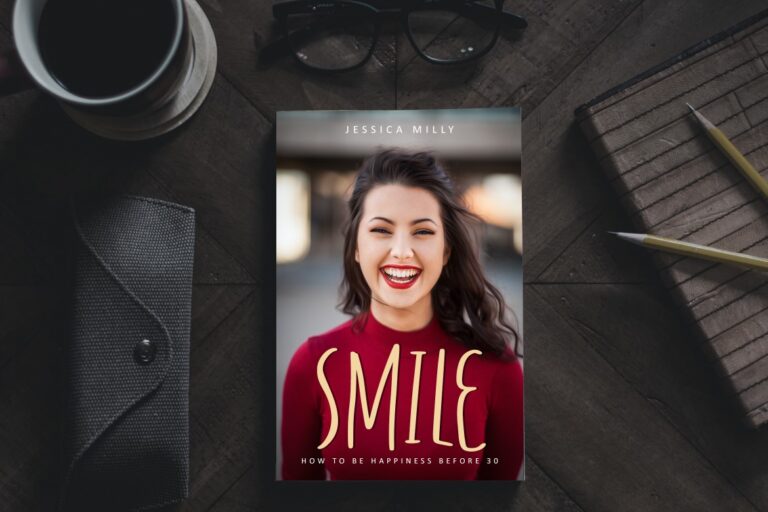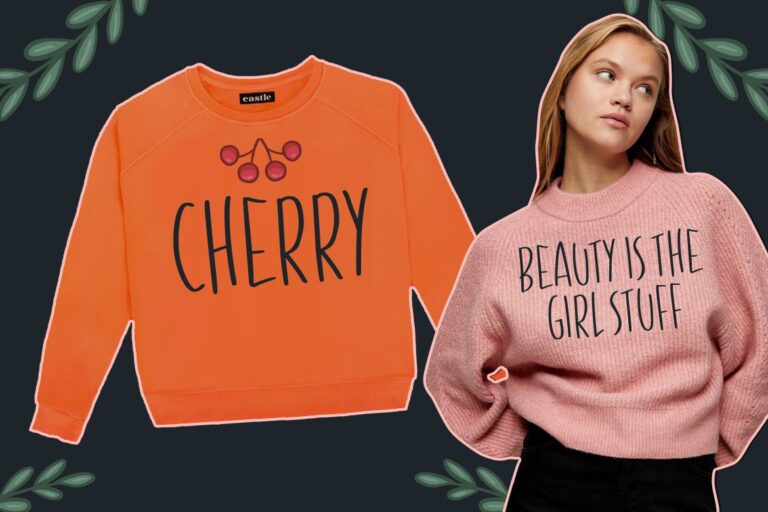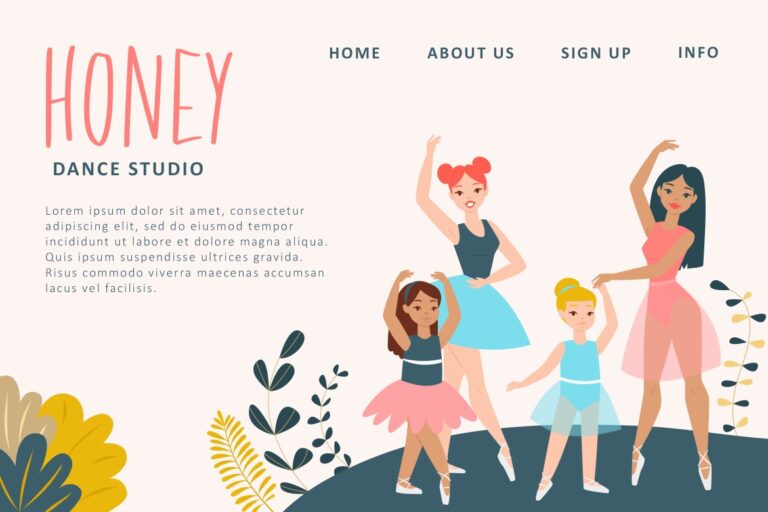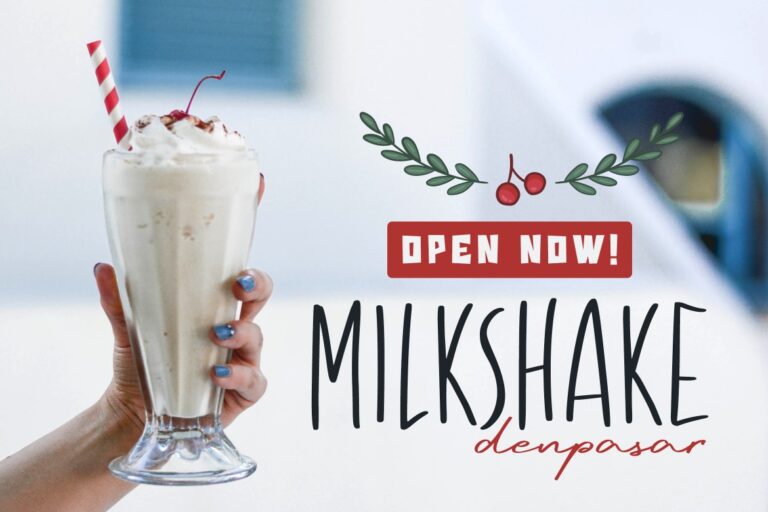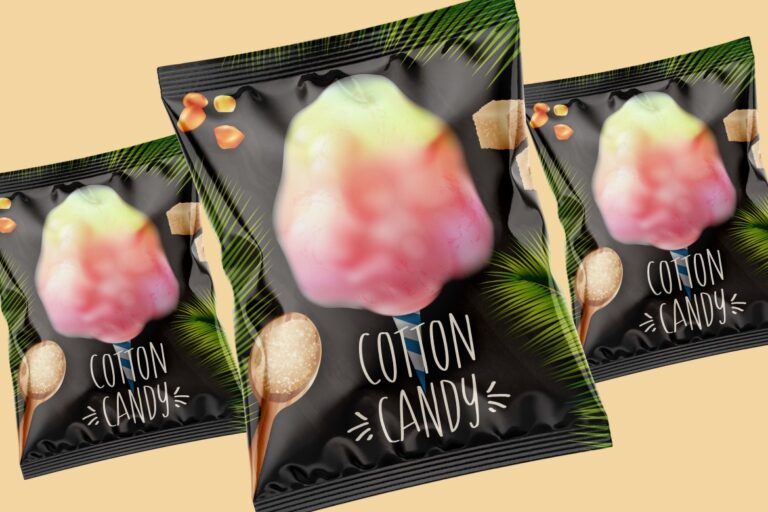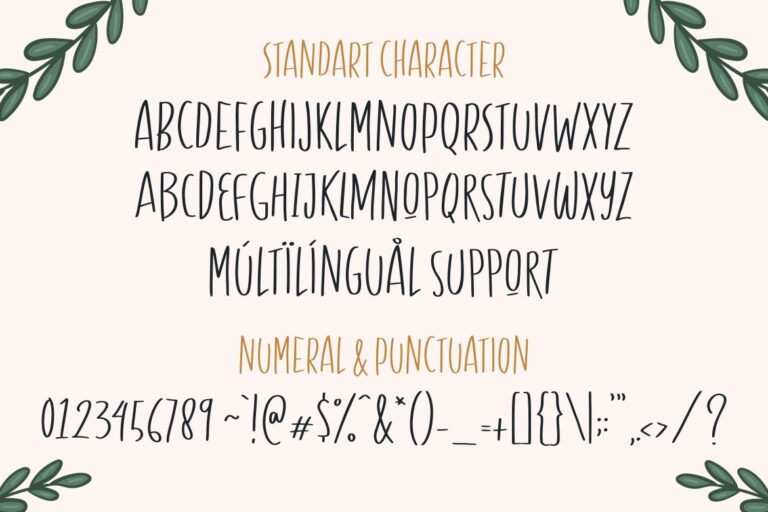
GESTURE
Gesture is natural handwritten font. For you, yes for everyone that looking for natural font , just use this font, perfect for book cover, for food menu, for educational project, and any logo design